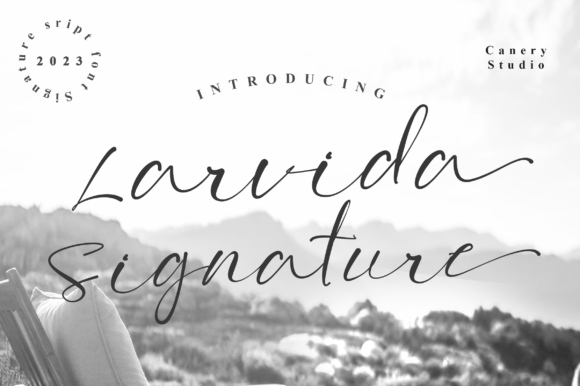
Immerse yourself in the world of Larvida, a striking signature font that captures the essence of individuality and style. With its mesmerizing flow and unfettered charm, Larvida invites you to unleash your creativity and make a statement like never before.
Indulge in the elegance and art that Larvida brings to your designs. Discover a symphony of graceful lines and flowing strokes that mimic the beauty of handwritten notes, evoking a sense of intimacy and authenticity. Whether you're crafting high-end logos, fashion catalogs, wedding invitations, or eye-catching social media posts, Larvida adds a touch of sophistication and allure to any project.
Step into the realm of luxury and exclusivity with Larvida. This extraordinary font is a perfect match for brands that seek to create a memorable and opulent impression. From fashion empires and perfume houses to luxurious hotels and lifestyle magazines, Larvida's presence elevates designs to new heights, capturing attention and leaving a lasting impact.
Embrace the versatility of Larvida, a font that defies creative boundaries. Its expressive nature lends itself effortlessly to a wide range of design projects, from heartfelt handwritten letters and personal branding to bold headlines and impactful marketing campaigns. With Larvida, your ideas take center stage, resonating with audiences in a way that is both personal and unforgettable.
Unleash the potential of Larvida's PUA encoding, a powerful feature that grants you access to a treasure trove of glyphs and ligatures. Seamlessly incorporate intricate embellishments, flourishes, and swashes into your designs, adding depth, character, and a touch of playful elegance. Your creations will exude an air of refined artistry, leaving your audience captivated and inspired.